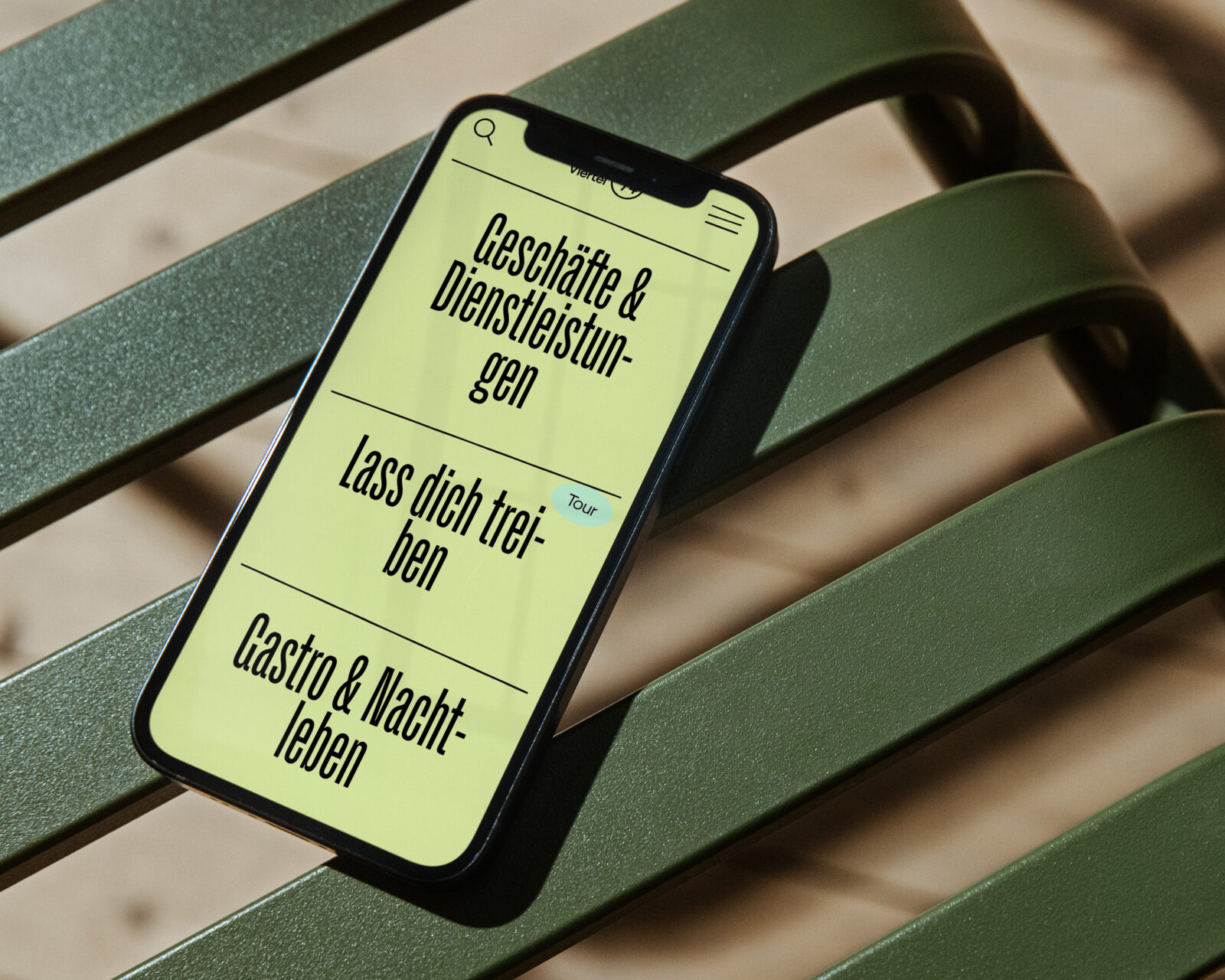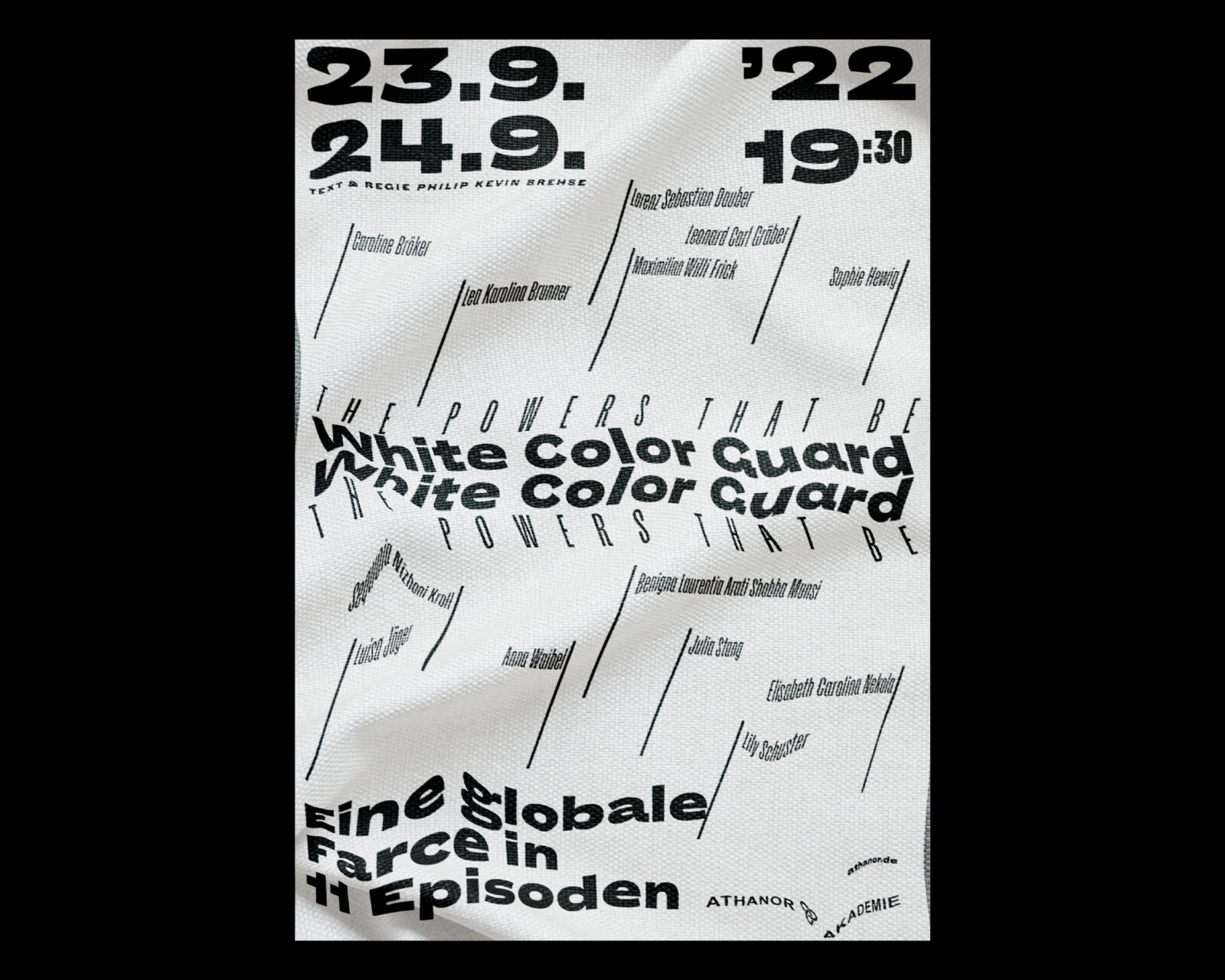
Norbert
An unaffected Grotesque and everything you never needed
Norbert is not as naive as Philipp Neumeyer expected. A collection of extremes, Norbert reflects on how the bundled-together styles of early hot metal type families were enriched by their contradictions and looks ahead. The result is an unaffected Grotesque and everything you never needed.
Harmonised without conformity, more familiar than family, Norbert’s three weights are in two widths: Condensed (Schmal) and Extended (Breit), each complemented by Kursiv and Kontra— Backslanted—styles. Intentionally, Norbert has no regular width, Variable Font, or interpolated weights. Its character and versatility in identity and editorial work is a result of its styles being individually drawn, individually considered. It is what it is. Not a workhorse, but a typeface that can be delicate and rough for special occasions. As required, or not.
As with all TypeMates fonts, Norbert comes with extensive language support. Philipp was inspired by metal letters on a building in St Petersburg, so Norbert comes with Cyrillics proofed, scrutinised and tested by native experts. Philipp hopes you care about Norbert’s extensive range of arrows because he does.
Designed by
Philipp Neumeyer
Maria Doreuli, Daria Cohen, Ilya Ruderman & Yury Ostromentsky